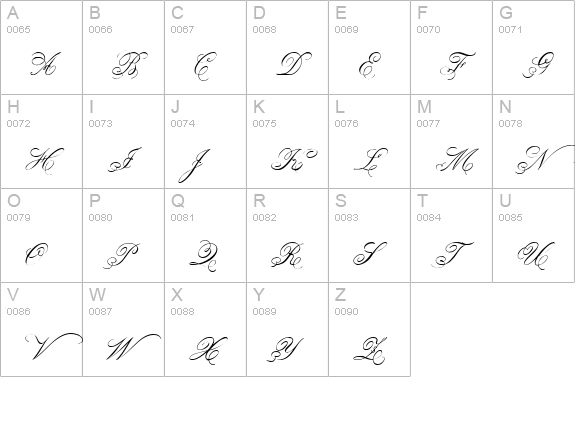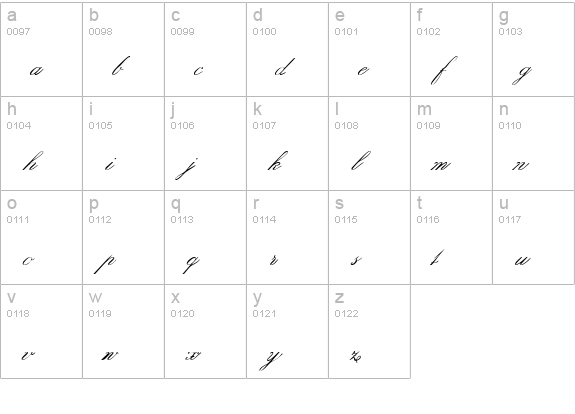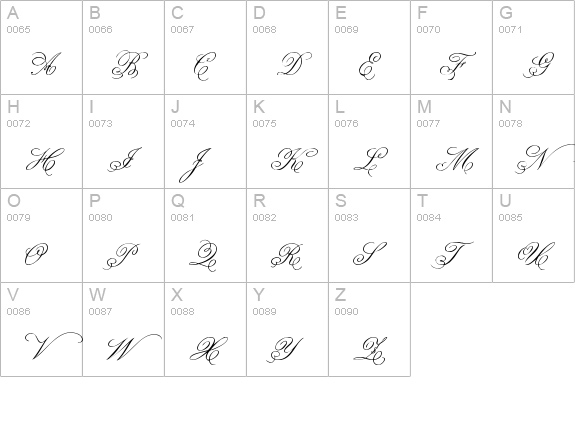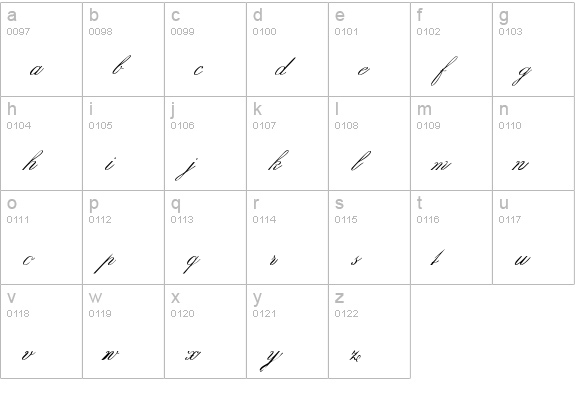
Belphebe Font Details
Introducing Belphebe font, a versatile and elegant typeface that exudes sophistication and charm. With its delicate curves and stylish flourishes, Belphebe is perfect for adding a touch of class to any design project. Whether you're creating invitations, branding materials, or social media graphics, this font will elevate your work to the next level. What's even better is that Belphebe font is available for free download at FontsMarket.com. Yes, you read that right - you can enjoy the beauty and versatility of this stunning typeface without spending a dime. Don't miss out on this incredible offer to enhance your designs with the timeless appeal of Belphebe font. Download it today and let your creativity shine!